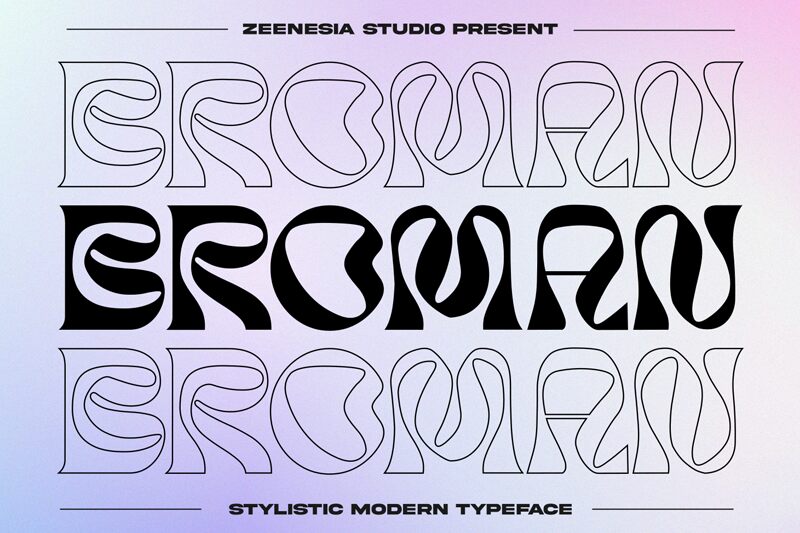
Broman, a captivating display font crafted by Zeenesia Studio, exudes a groovy and dynamic essence. With its bold, rhythmic strokes and playful, organic forms, this font radiates a sense of energy and movement, inviting the viewer to experience a vibrant, retro-inspired aesthetic. The striking, expressive letterforms evoke a carefree, vintage ambiance, making Broman an alluring choice for projects seeking to capture a nostalgic or whimsical spirit.
Broman's versatility allows it to shine in a range of design applications, from eye-catching headlines and impactful logos to dynamic branding and packaging elements. Its bold, attention-grabbing presence makes it a natural fit for projects aiming to make a lasting impression, whether in the realms of music, fashion, or contemporary art. With its unique character and ability to command attention, Broman is a font that can elevate and energize any visual narrative.